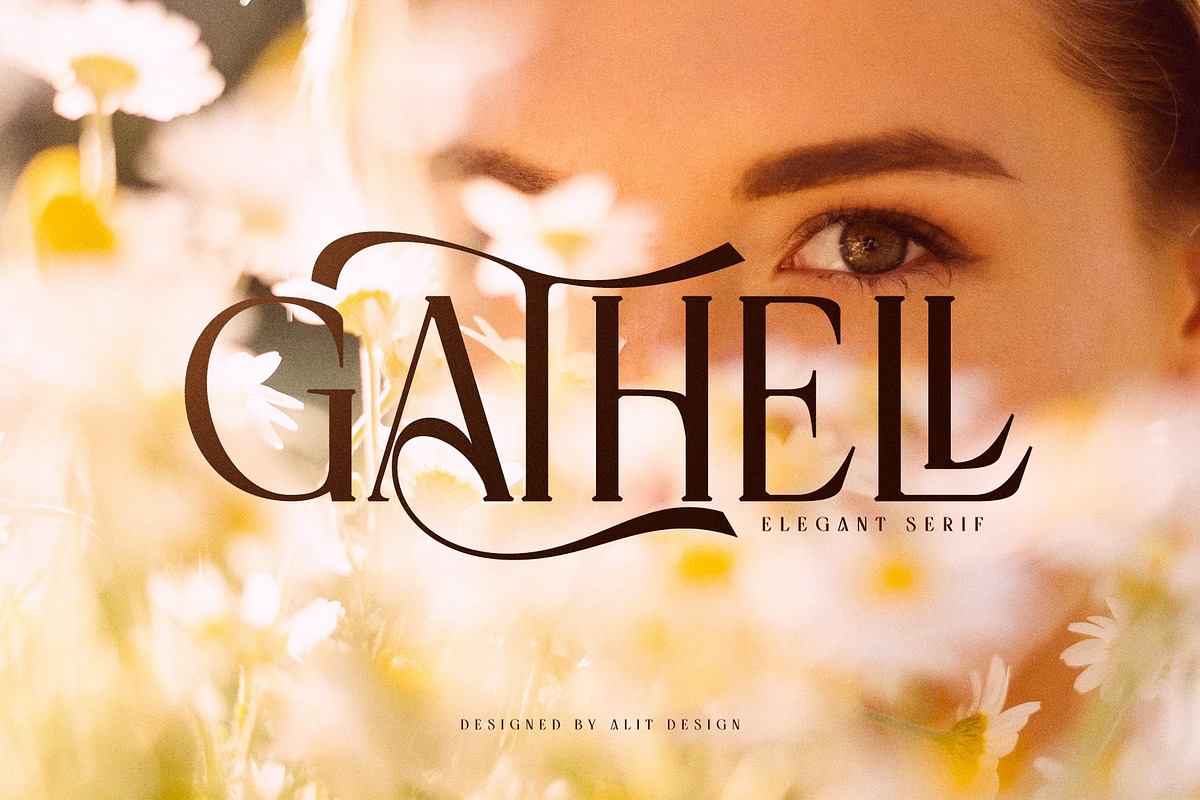
Command attention with timeless sophistication using Gathell Typeface Free Download — a classic yet contemporary serif font that brings elegance and strength to any design. Ideal for branding, editorial layouts, luxury packaging, and high-end logos, Gathell strikes the perfect balance between tradition and modernity.
With sharp serifs, graceful curves, and perfect spacing, this typeface exudes professionalism and style. It includes uppercase and lowercase letters, numbers, punctuation, and multilingual support — offering everything you need to create clean, refined, and globally appealing designs.